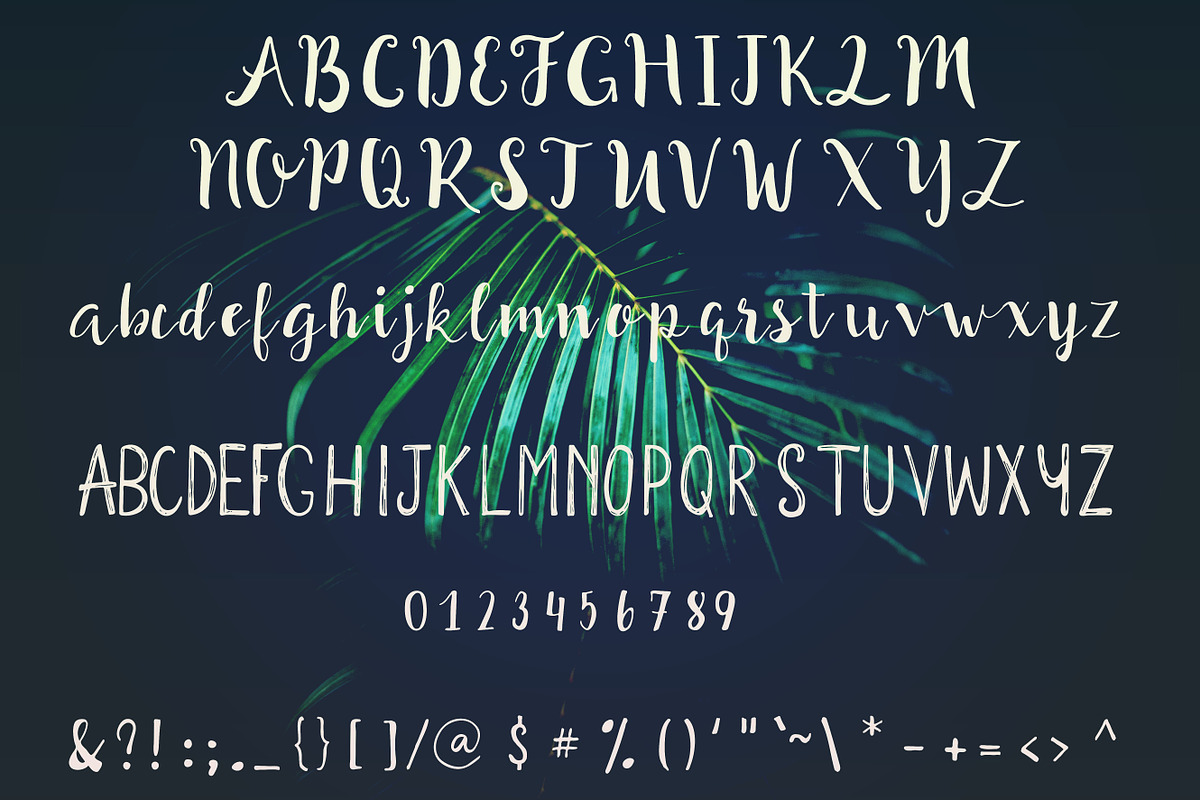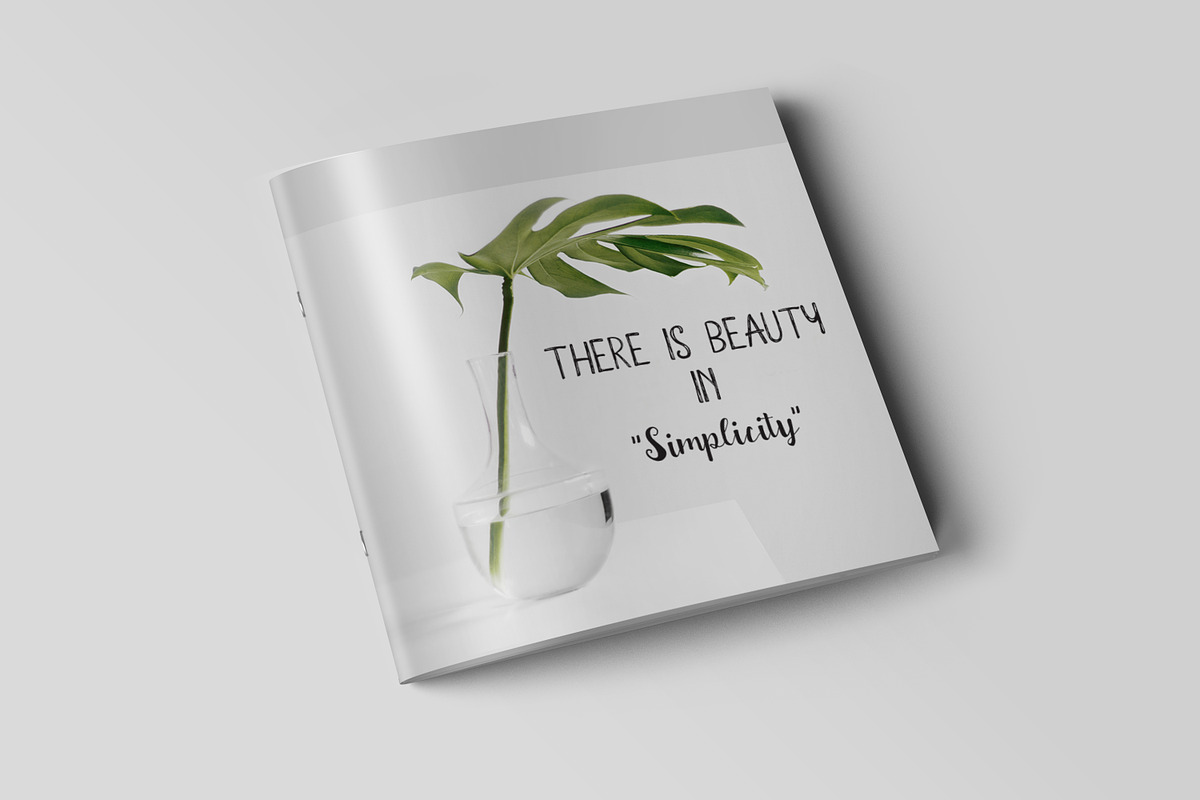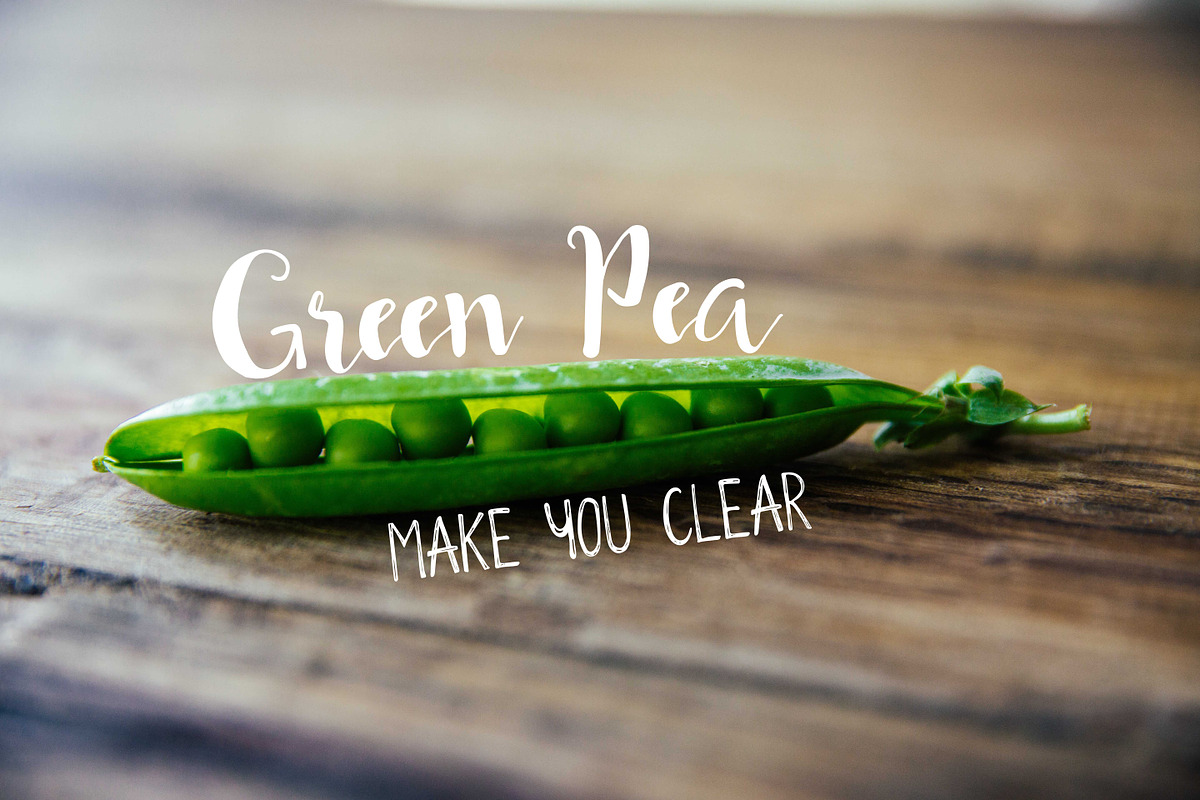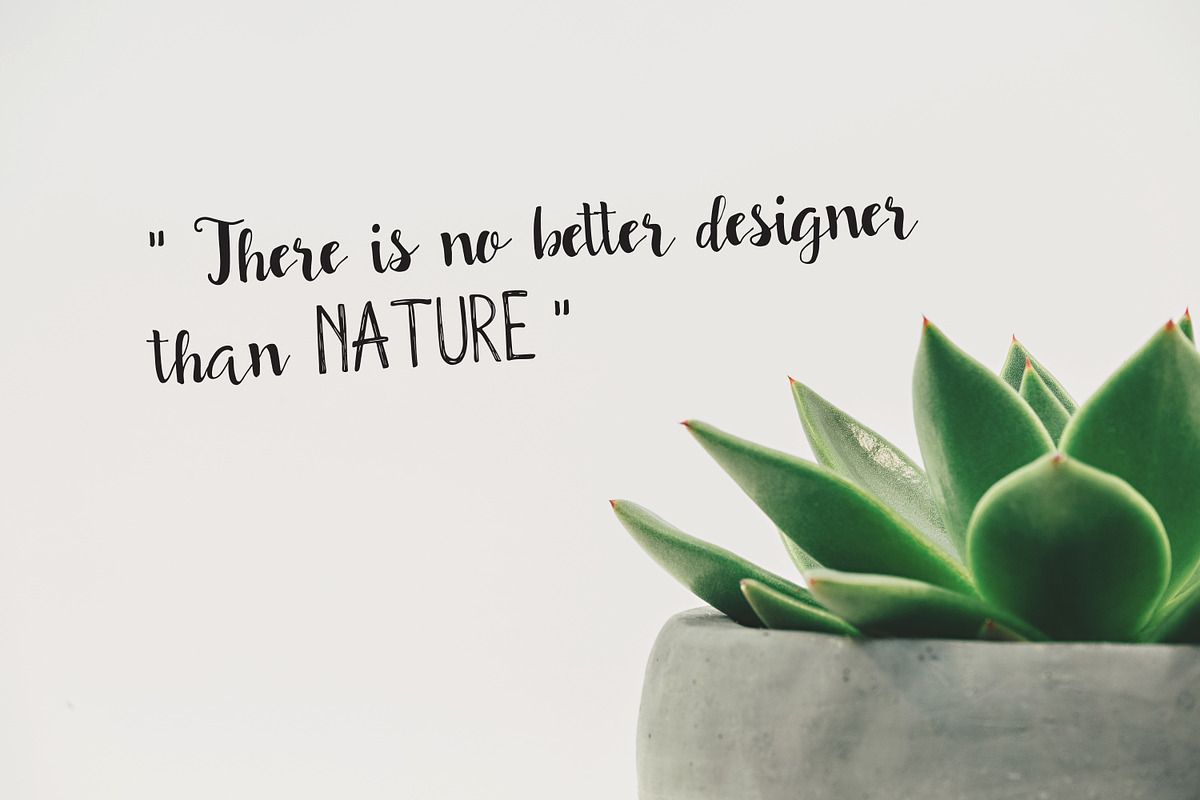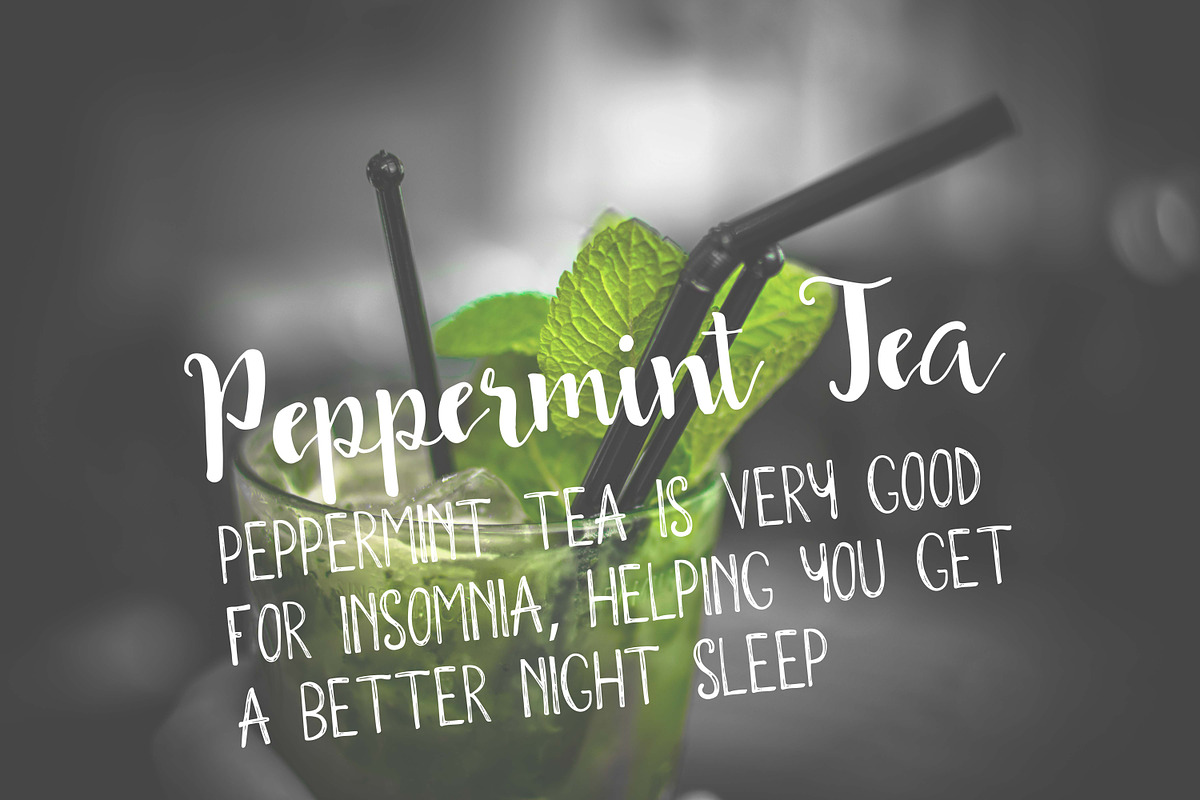
Smoothie font duo
Smoothie font duo by Artstudio is a font selected for branding, posters, packaging, typography.
Why Smoothie font duo is worth a look
Smoothie font duo by Artstudio fits naturally into Branding, posters, packaging, typography.